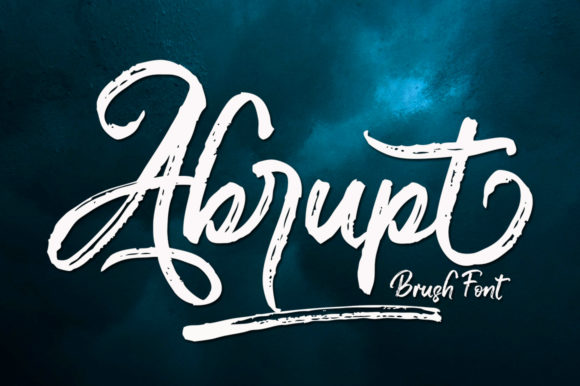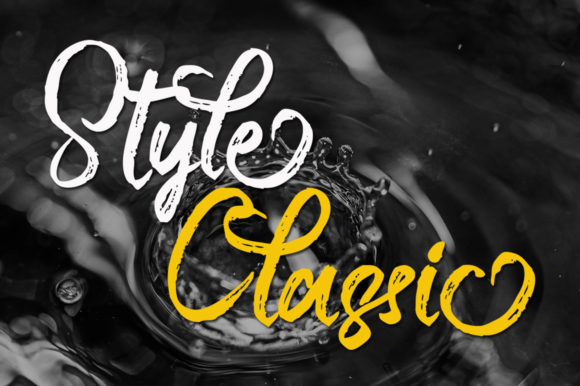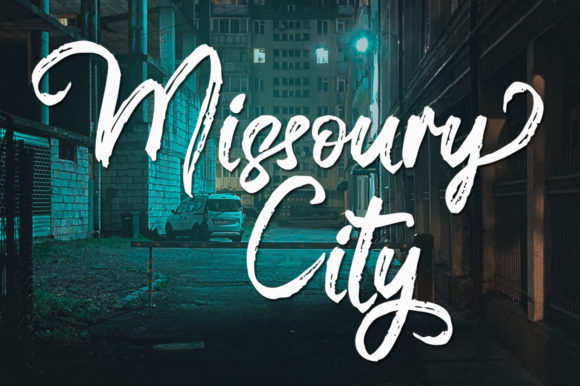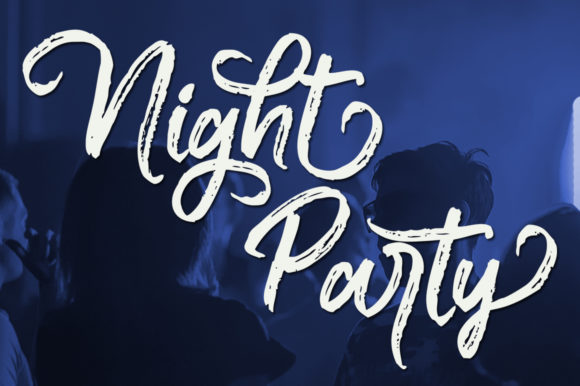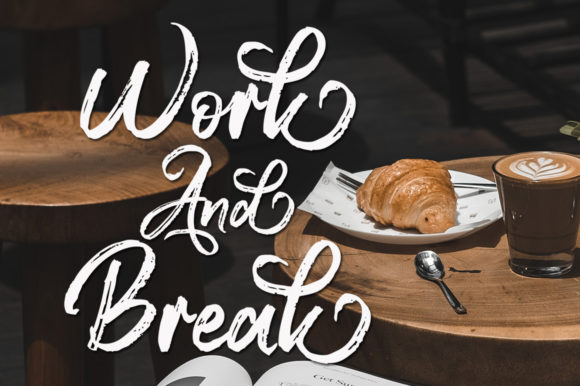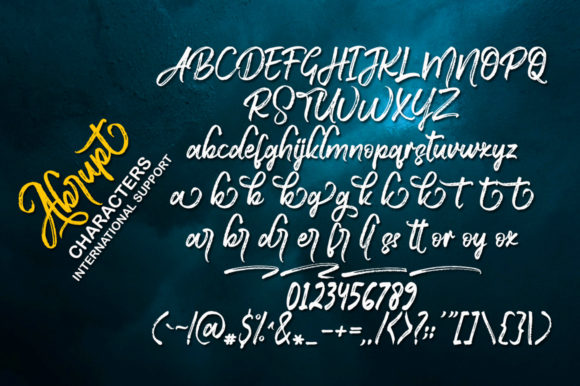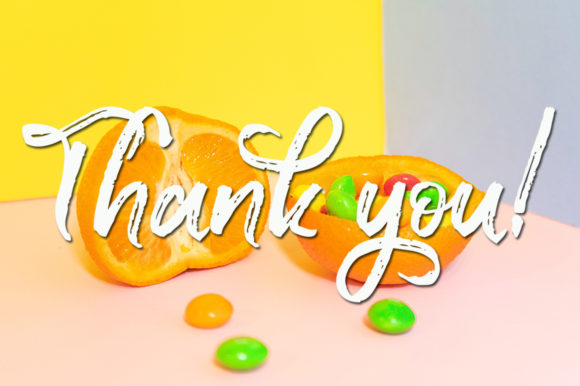
Abrupt Font
About Abrupt Font
Abrupt is a textured brushed handwritten font. It is PUA encoded which means you can access all of the glyphs and swashes with ease!